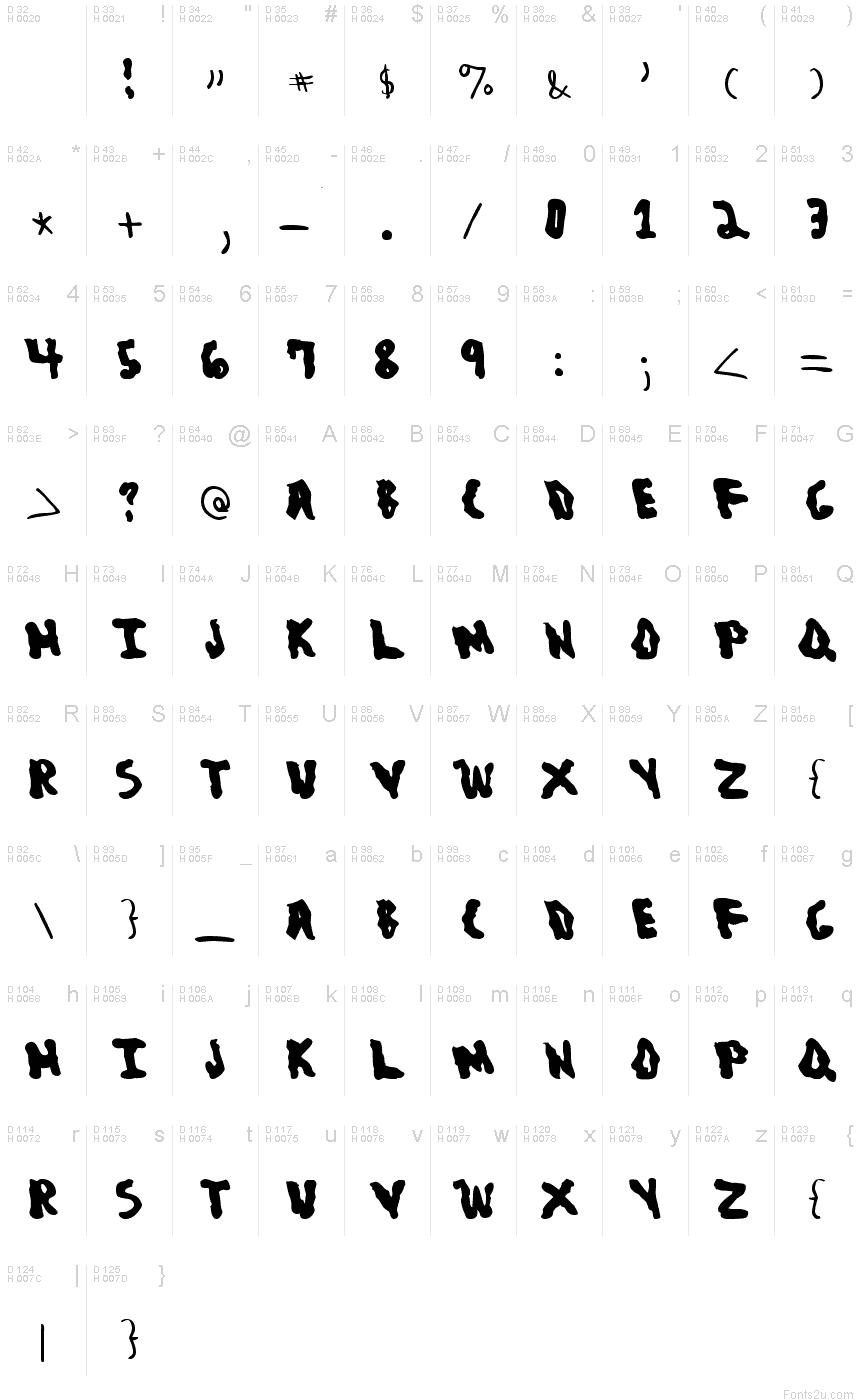
Blob
Blob font by Andy Krahling and Matt Krahling is a free distorted display typeface that looks like thick ink spills frozen mid-drip. Each letter bulges and warps with a gooey, almost rubbery texture, giving headlines a wild, organic silhouette. The heavy black shapes close in around the counters, creating an intense, claustrophobic feel that instantly grabs attention.
Using Blob font, you can push horror posters, Halloween party flyers, underground gig promos, zine covers, game titles, and edgy sticker designs into full-on slime territory. This free font shines at oversized sizes where its blobby edges can really ooze across the page; pair it with a clean, narrow sans serif for small supporting text to keep things readable.